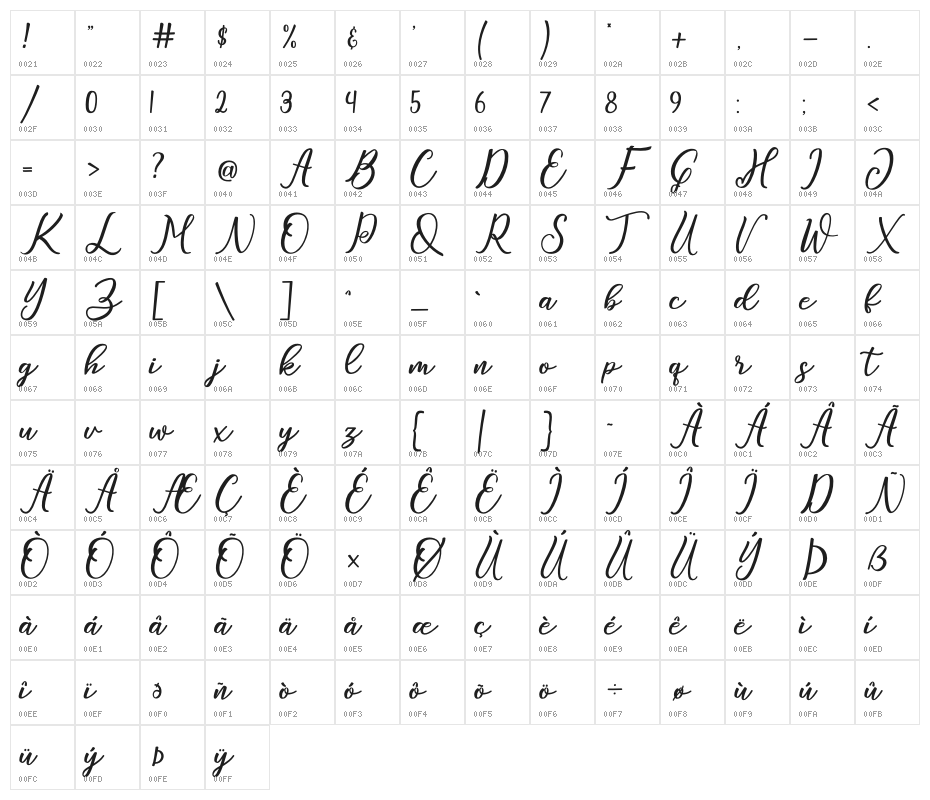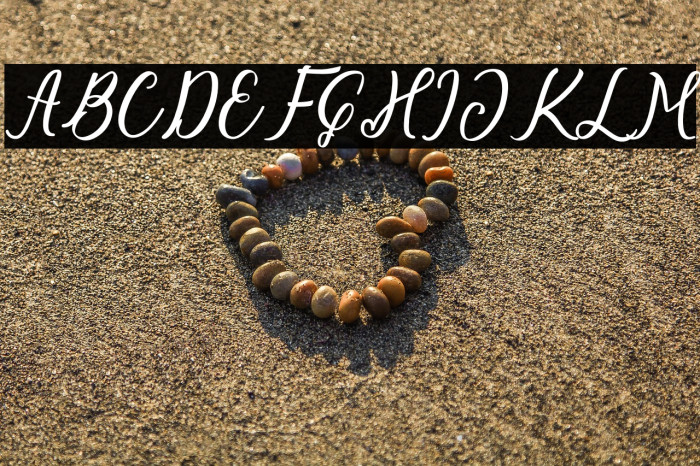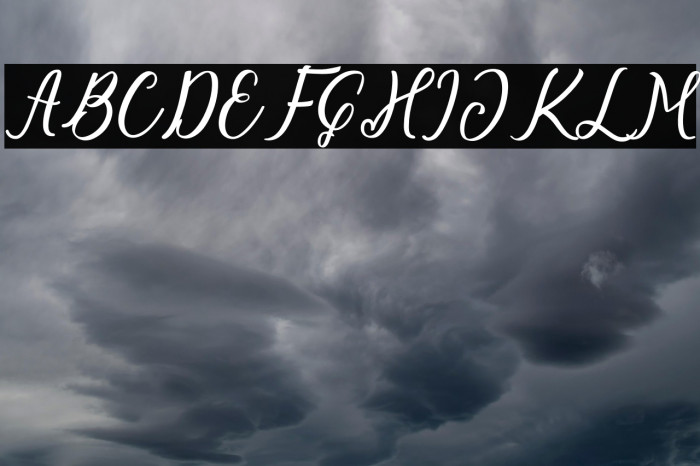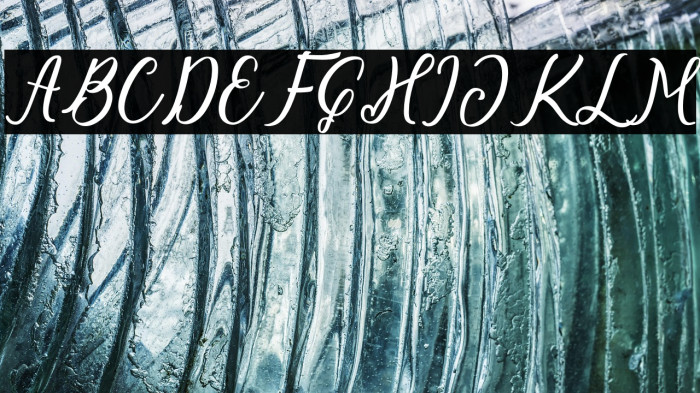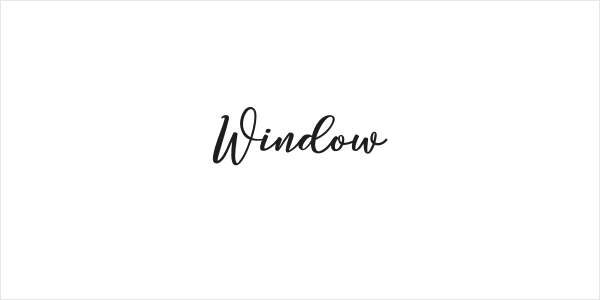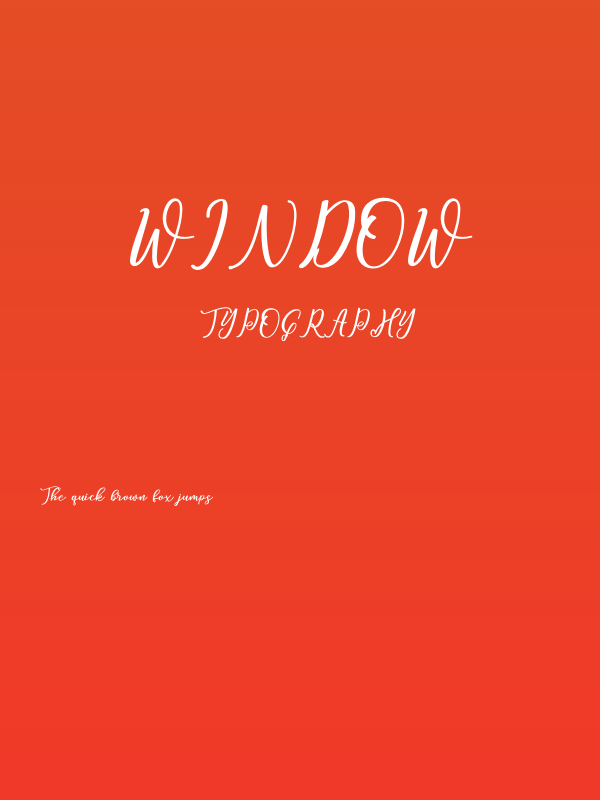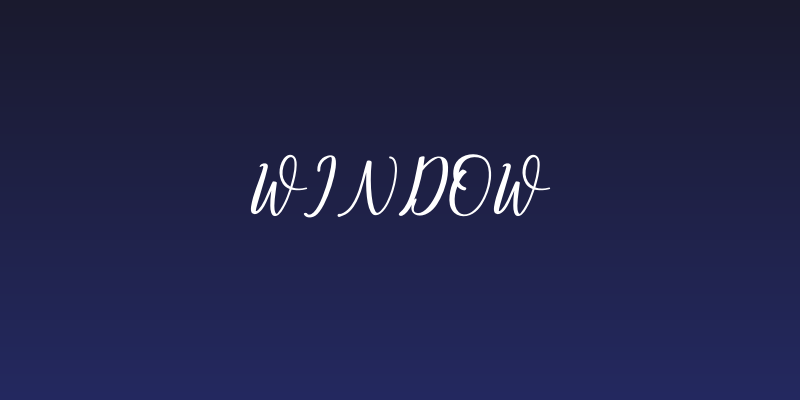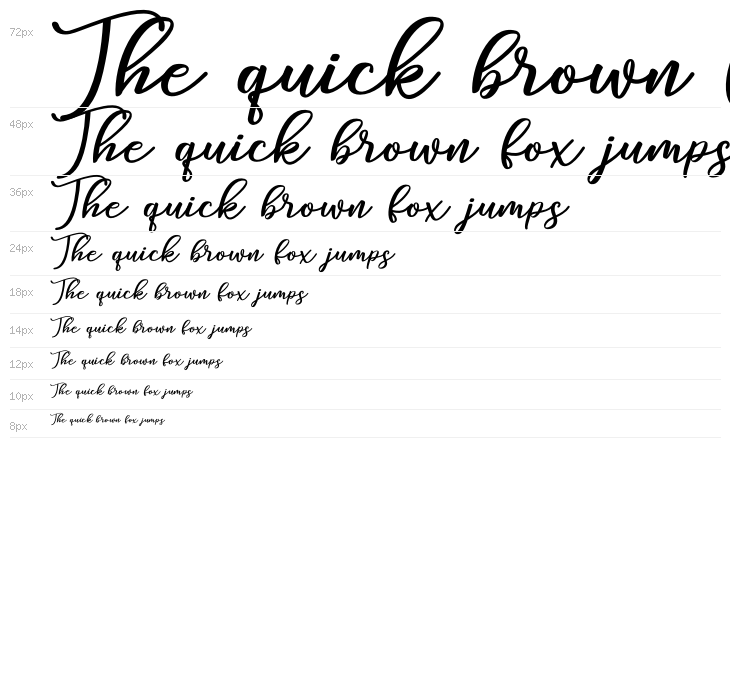
Window Font
Window Description
This font features an elegant and flowing script style, characterized by its smooth, cursive letterforms that convey a sense of sophistication and grace. The uppercase letters are distinct with their swirls and loops, adding a decorative touch, while the lowercase letters maintain a consistent flow, enhancing readability. The numerals are styled to match the cursive theme, providing a cohesive look across all characters. Special characters are thoughtfully designed to integrate seamlessly with the overall aesthetic, making this font versatile for various applications. Its artistic flair makes it suitable for projects that require a personal and creative touch.
| Overall Style | Elegant, Decorative |